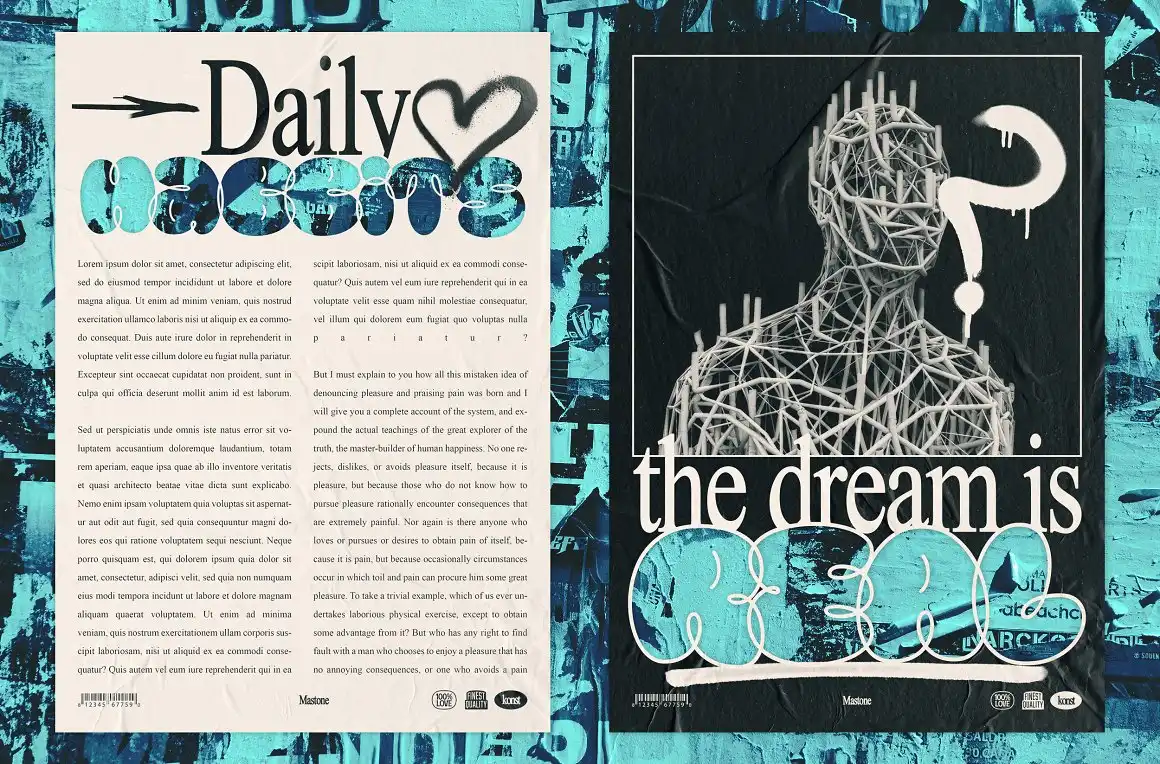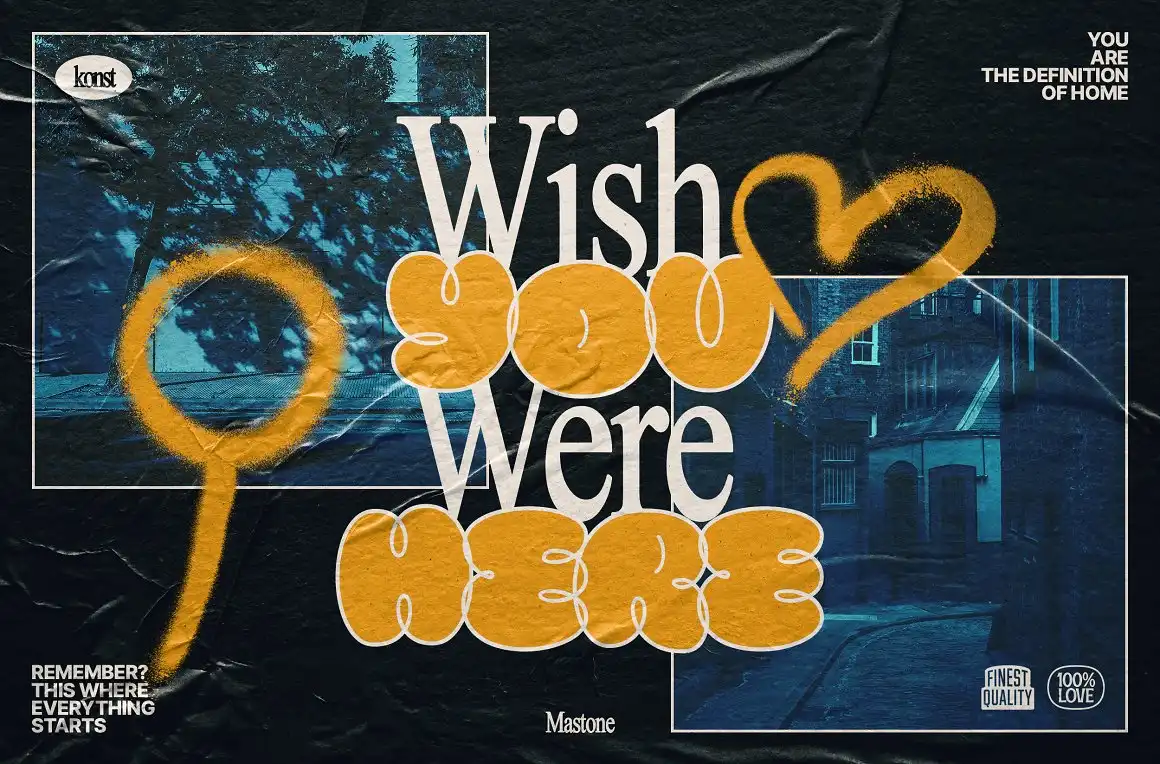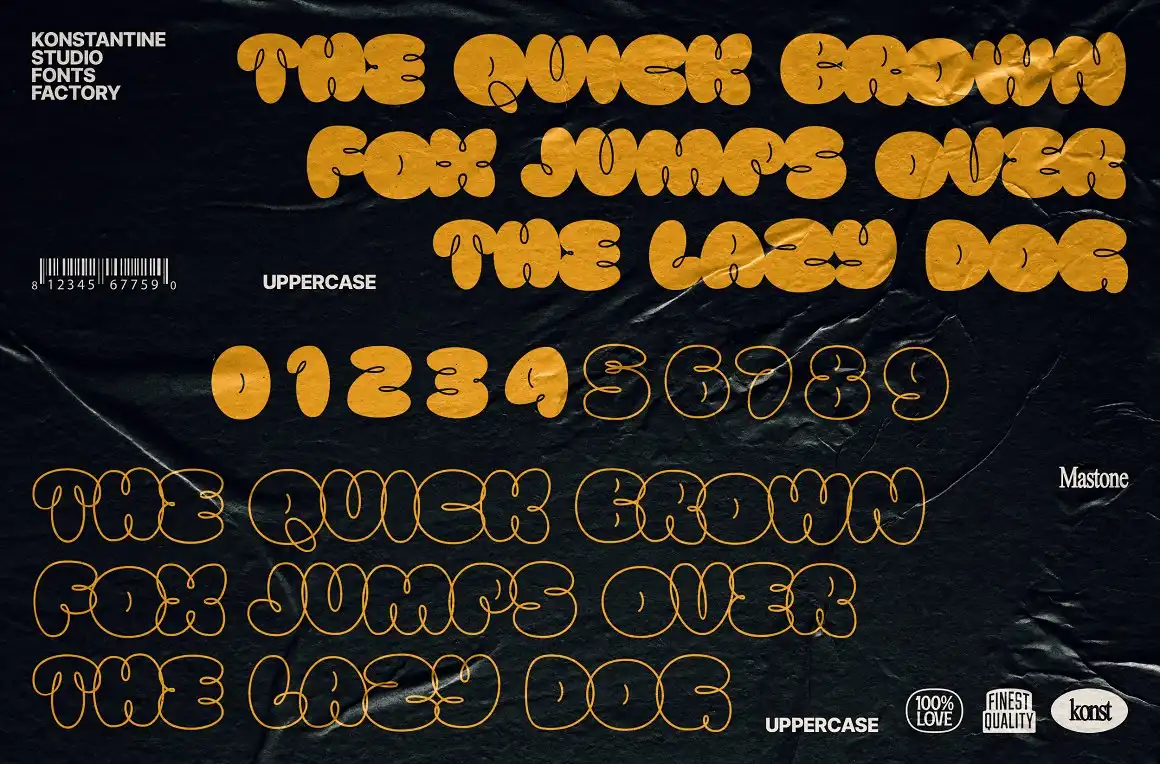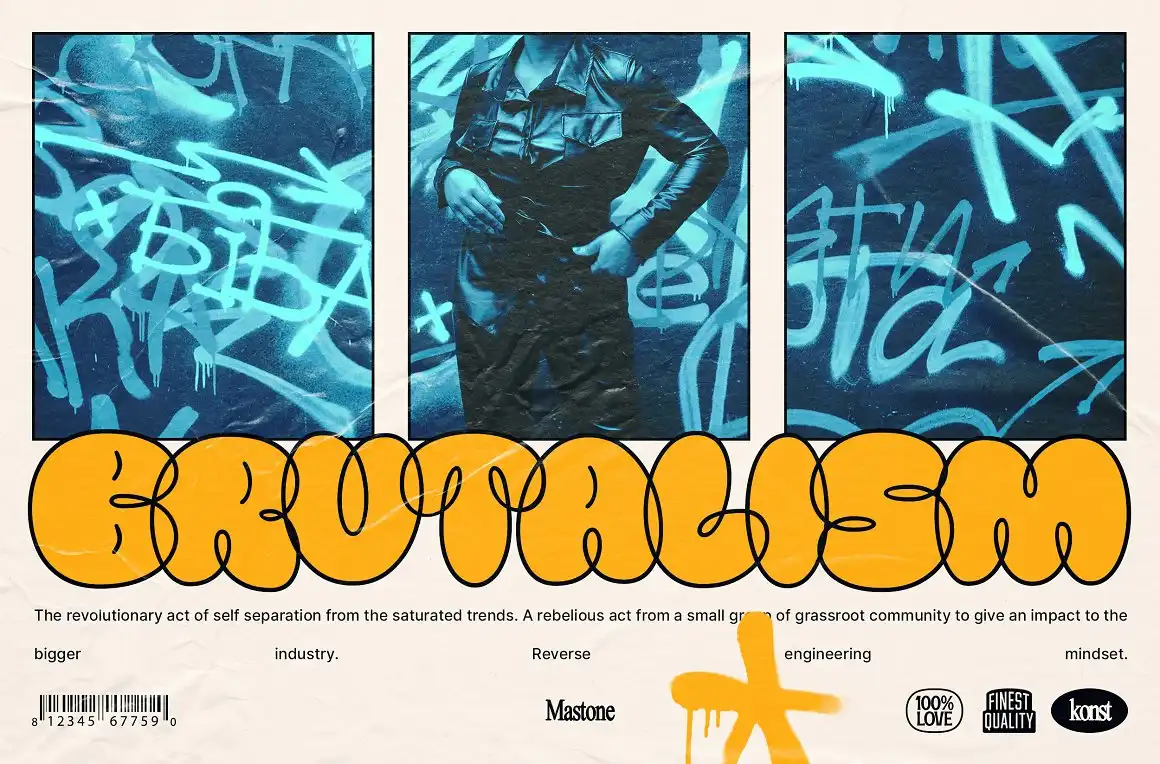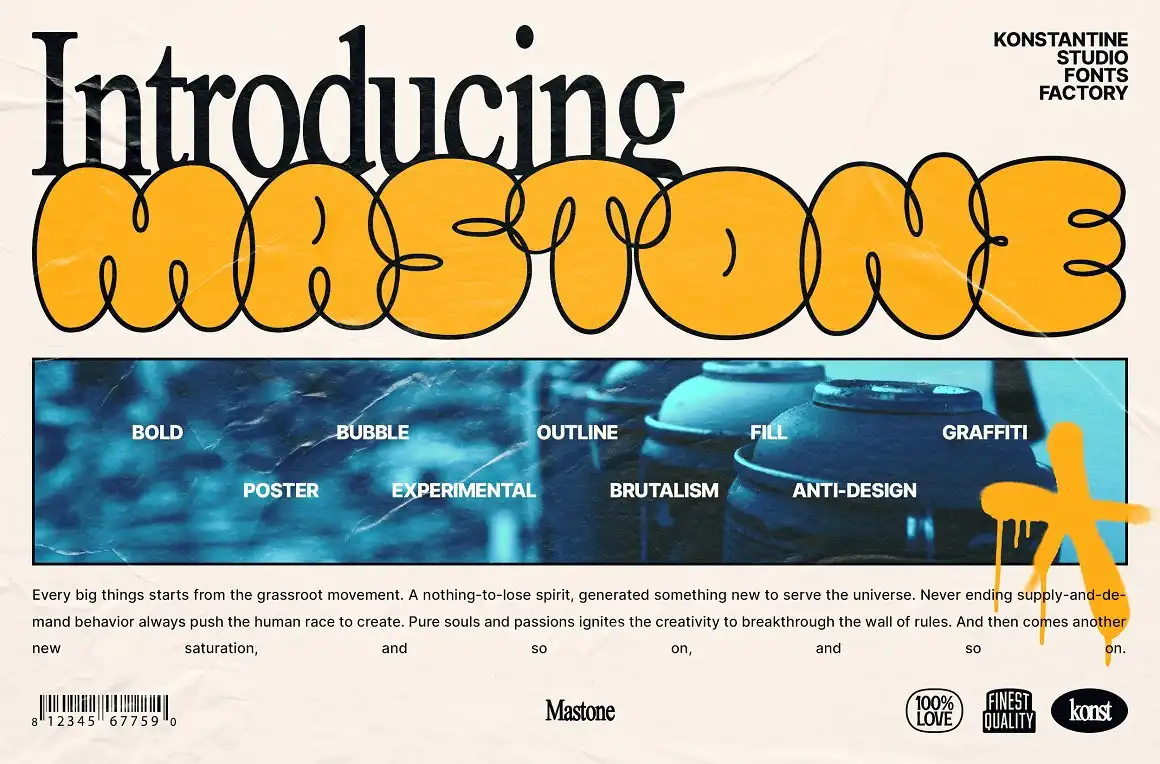
Welcome to Mastone – Urban Bubble Fonts!
This digital download features a stunning collection of bubble fonts that capture the vibrant essence of urban culture! 🎉 With instant access to your new favorite typography, you can start creating amazing designs right away. Whether you’re working on a bold album cover or an eye-catching poster, these fonts bring a playful, modern vibe to your projects!
Mastone is a unique font inspired by the latest bubble typography trends in the graphic design world. 🌟 Merging elements of Y2K culture, streetwear visuals, and brutalism, this font embodies a fresh, experimental approach to bubble throw-up graffiti styles. Perfect for any creative looking to add a touch of urban flair! 🎨
- Versatile Design: Perfect for logos, branding, posters, and album covers, adding a trendy aesthetic to any project.
- Unique Style: Combines Y2K culture and modern aesthetics, making your designs stand out in a crowd.
Mastone – Urban Bubble Fonts are ideal for:
- Graphic designers looking to create trendy designs
- Branding experts needing unique typography for logos
- Musicians and artists crafting eye-catching album covers
- Fashion brands wanting to stand out in a crowded market